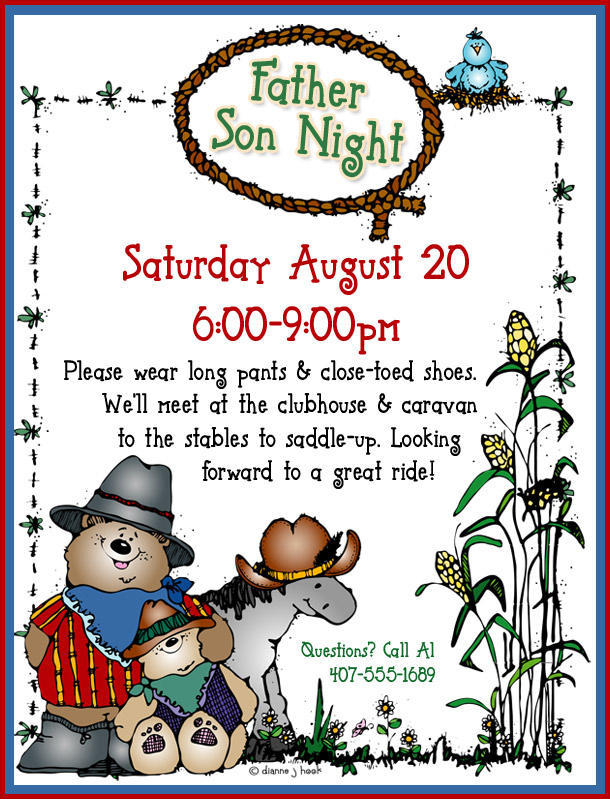
DJ Groovy Serif Font Download
This bold, serif font by DJ Inkers is totally Groovy! It can add style and personality to any project in just one click... while still being easy to read. Type-up a smile on your classroom creations, office and home crafting.